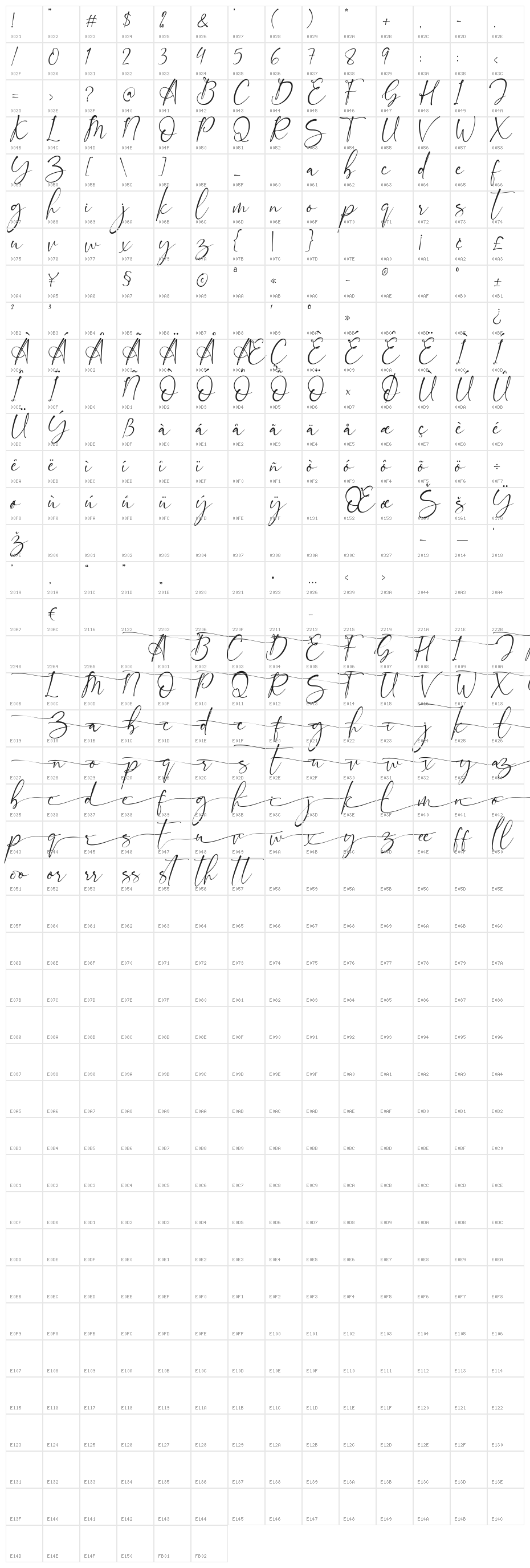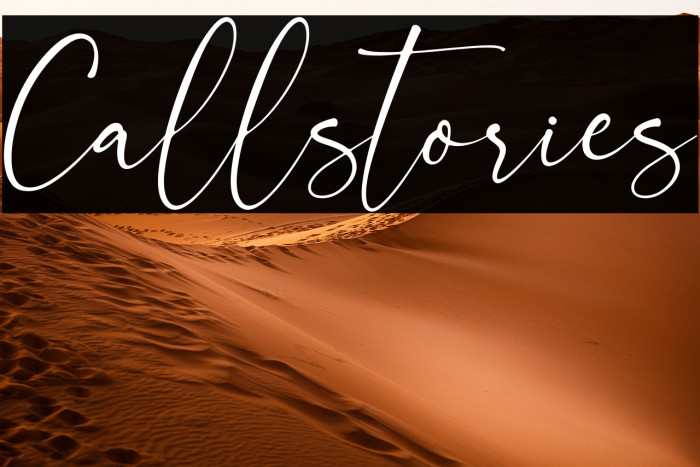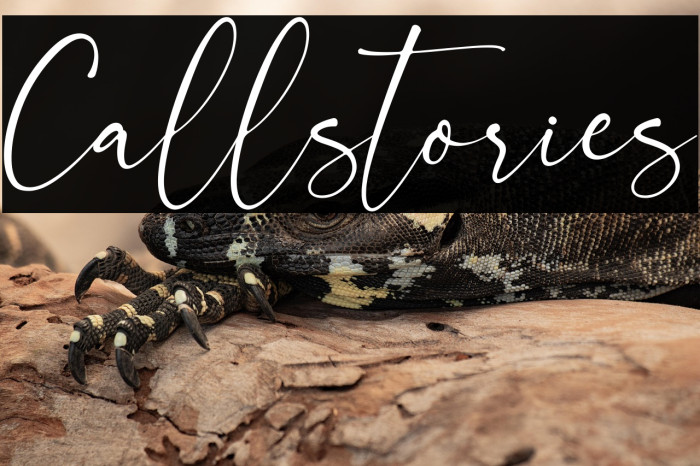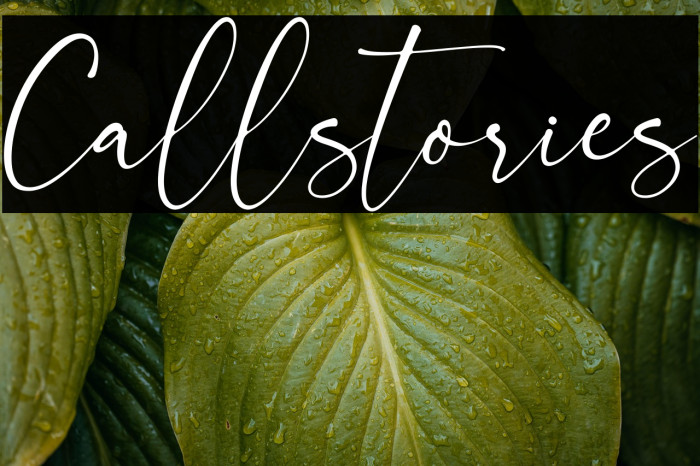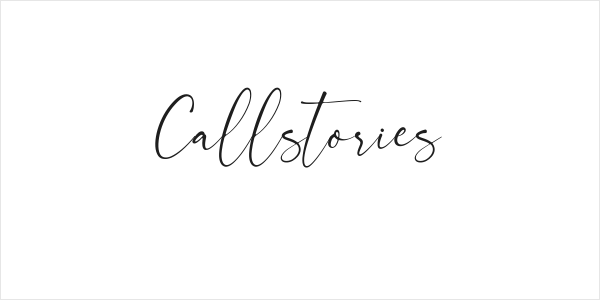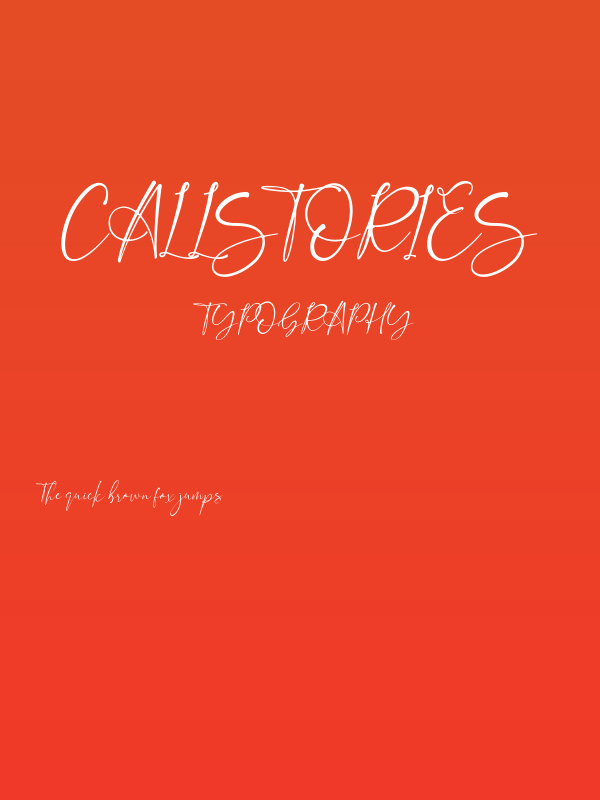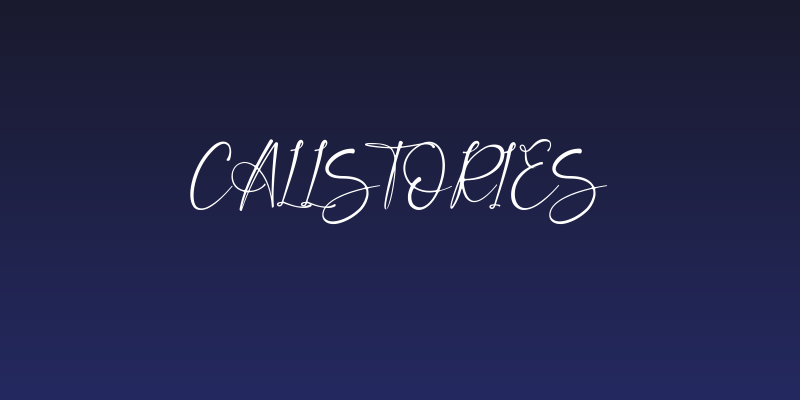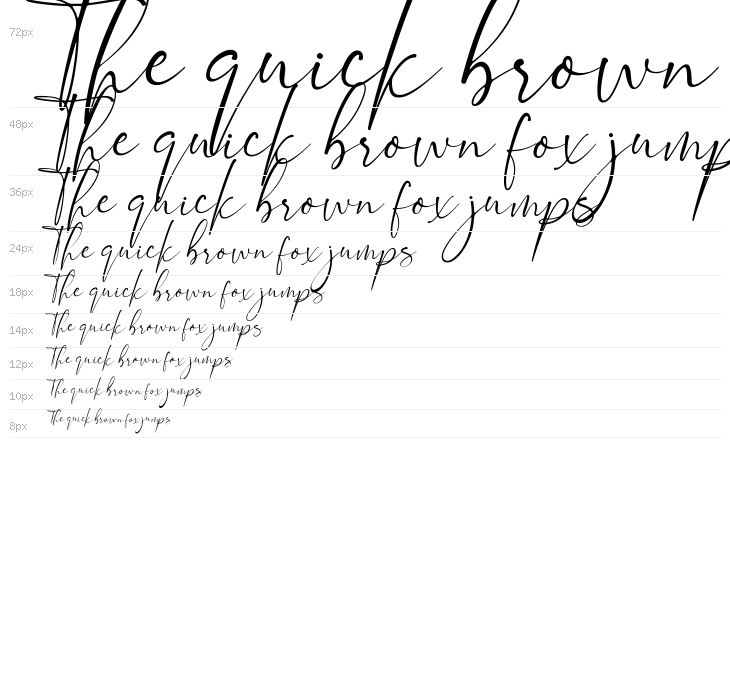
Callstories Font
Callstories Description
This font features an elegant and flowing script style, characterized by its smooth, cursive strokes and a handwritten appearance. The uppercase letters are ornate with distinct loops and flourishes, while the lowercase letters maintain a consistent fluidity, enhancing the overall aesthetic. The numerals are designed to match the script style, with a graceful and cohesive look. Special characters are integrated seamlessly, maintaining the font's sophisticated and artistic vibe. This font exudes a sense of creativity and personal touch, making it ideal for projects that require a personal or artistic flair.
| Proposed Projects | Ideal for wedding invitations, greeting cards, personal branding, and artistic projects. |